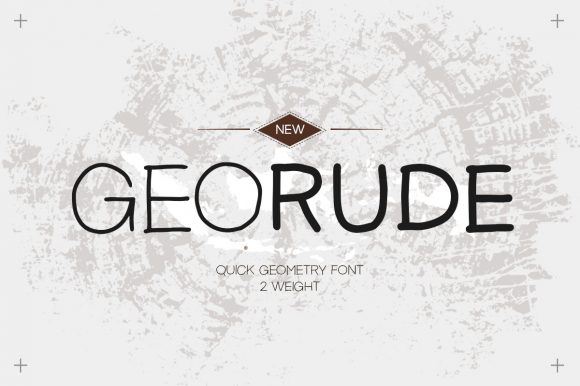
Introducing Georude Font: A Simple yet Quirky Display Font
Are you looking for a font that can add a touch of personality to your designs? Look no further than Georude Font. This simple and quirky display font is perfect for a wide range of projects, from branding and advertising to packaging and digital media. In this article, we’ll take a closer look at Georude Font and explore its features, benefits, and uses.
What is Georude Font?
Georude Font is a display font that is characterized by its simplicity and quirkiness. It has a unique and eye-catching design that sets it apart from other fonts. The font is perfect for headlines, titles, and short paragraphs of text, making it an excellent choice for designers who want to add a touch of personality to their work.
Key Features of Georude Font
- Simple and Quirky Design: Georude Font has a simple yet quirky design that makes it perfect for a wide range of projects.
- Display Font: Georude Font is a display font, making it perfect for headlines, titles, and short paragraphs of text.
- Unique and Eye-Catching: The font has a unique and eye-catching design that sets it apart from other fonts.
- Easy to Read: Despite its quirky design, Georude Font is easy to read, making it perfect for use in a variety of contexts.
Benefits of Using Georude Font
There are many benefits to using Georude Font in your designs. Here are just a few:
- Adds Personality to Your Designs: Georude Font can add a touch of personality to your designs, making them stand out from the crowd.
- Versatile: The font is versatile and can be used in a wide range of projects, from branding and advertising to packaging and digital media.
- Easy to Use: Georude Font is easy to use and can be easily integrated into your designs.
- Unique and Memorable: The font’s unique and quirky design makes it memorable and can help your brand or message stand out.
Uses of Georude Font
Georude Font can be used in a wide range of projects, including:
- Branding and Advertising: Use Georude Font to create eye-catching headlines and titles for your brand or advertising campaigns.
- Packaging Design: Add a touch of personality to your packaging designs with Georude Font.
- Digital Media: Use Georude Font in your digital media projects, such as videos, social media graphics, and website designs.
- Print Design: Georude Font can also be used in print design projects, such as brochures, flyers, and posters.
Tips for Using Georude Font
Here are some tips for using Georude Font:
- Use it Sparingly: Use Georude Font sparingly to avoid overwhelming your design.
- Pair it with Other Fonts: Pair Georude Font with other fonts to create a unique and interesting design.
- Experiment with Colors: Experiment with different colors to find the perfect match for your design.
- Keep it Simple: Keep your design simple and clean to allow Georude Font to shine.
In conclusion, Georude Font is a simple and quirky display font that can add a touch of personality to your designs. Its unique and eye-catching design makes it perfect for a wide range of projects, from branding and advertising to packaging and digital media. With its ease of use and versatility, Georude Font is an excellent addition to any designer’s font library.
- What is Georude Font?: Georude Font is a simple and quirky display font.
- What is Georude Font used for?: Georude Font can be used in a wide range of projects, including branding and advertising, packaging design, digital media, and print design.
- Is Georude Font easy to use?: Yes, Georude Font is easy to use and can be easily integrated into your designs.